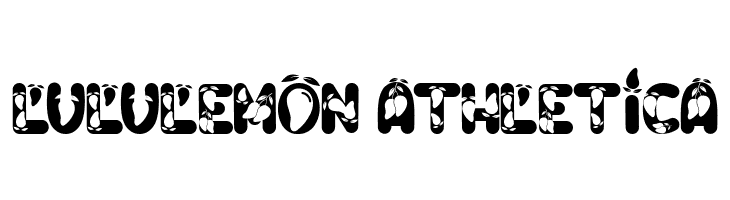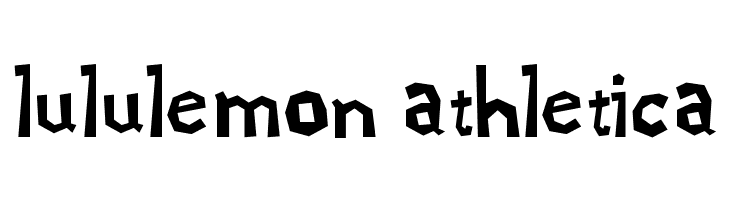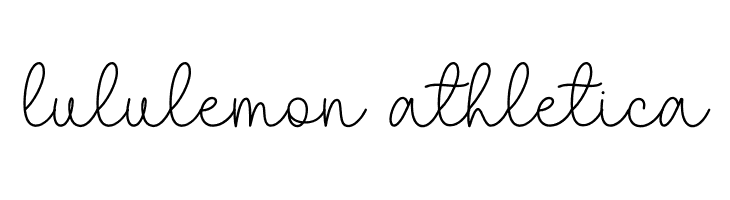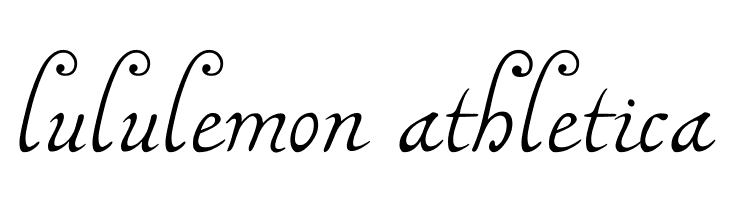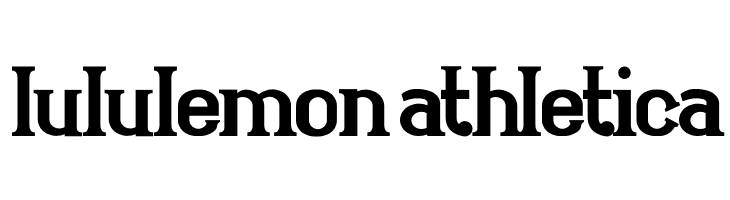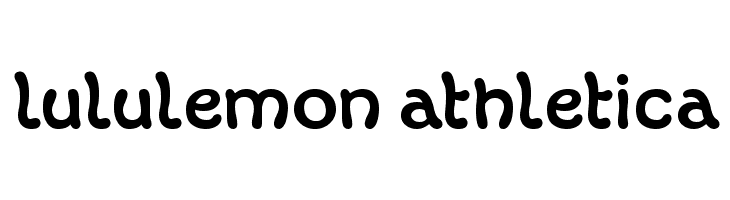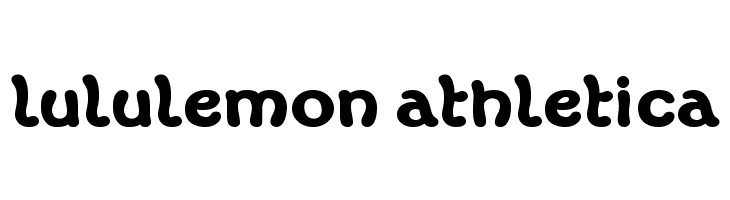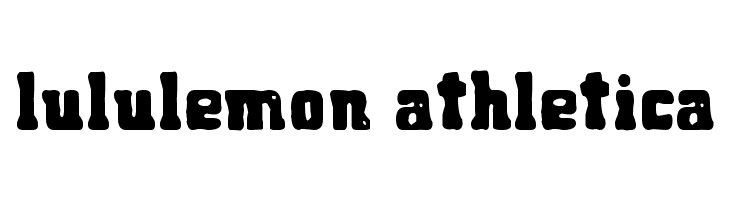
An ornate script font with elegant swirls and decorative flourishes.
An elegant, flowing script font with smooth, continuous strokes.
A bold, distressed font with a vintage, rugged appearance.
A bold, playful font with abstract decorative elements inside each character.
A bold, distressed font with a grunge texture and condensed width.
A geometric, abstract font with intersecting lines and sharp angles.
A playful, bold font with rounded, hand-drawn characters.
A playful, bold font with rounded, bubbly characters.